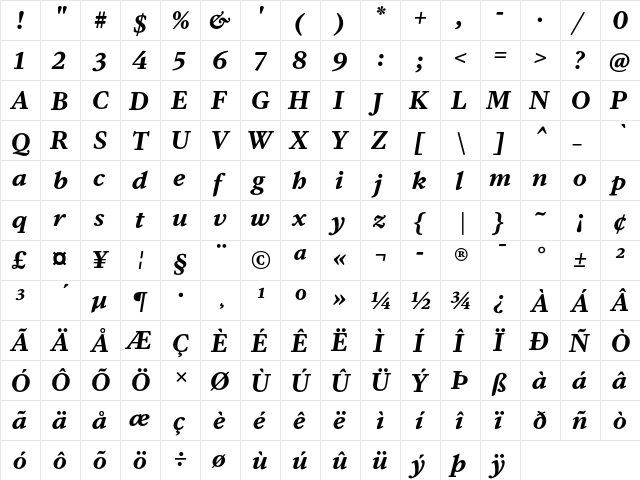
DB Serif Bold Italic Font Preview
Design Context for DB Serif Typeface
DB Serif carries the refined structure of traditional serif typography, with bracketed terminals and considered proportions that communicate credibility and craft. The dynamic lean of this cut emphasises speed and emphasis in any layout. Its bold stroke weight gives it real presence on the page.
Pro Tip: Use DB Serif for editorial body copy and considered headline work. Pair with a neutral sans for UI elements or captions to create a classic hierarchy.